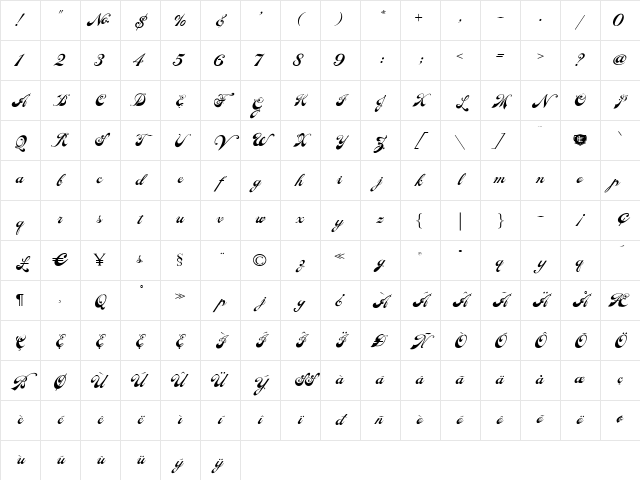
LHF Ephemera Regular
Foundry: Letterhead Fonts, by Tom Kennedy
Design Context for LHF Ephemera
LHF Ephemera is a composed and adaptable typeface that performs quietly and consistently across a wide range of design contexts.
Who designed the LHF Ephemera Regular font?